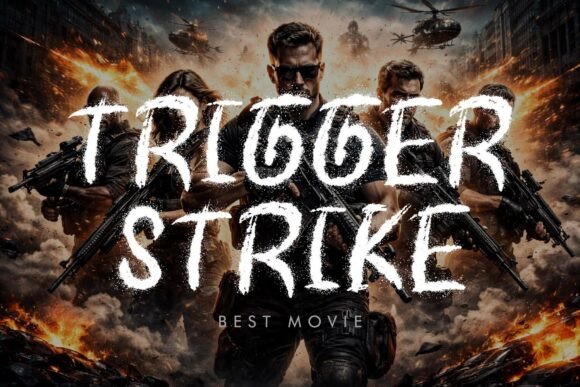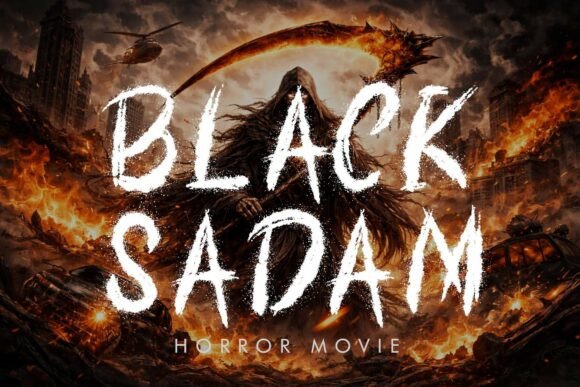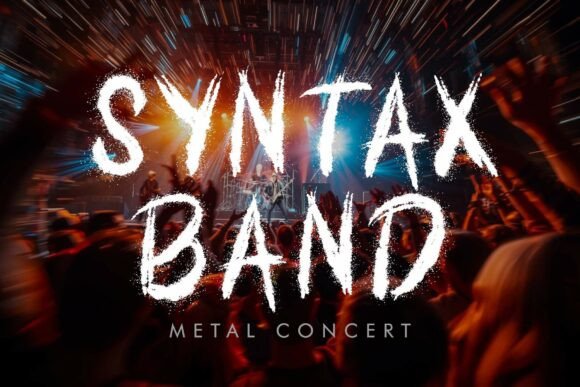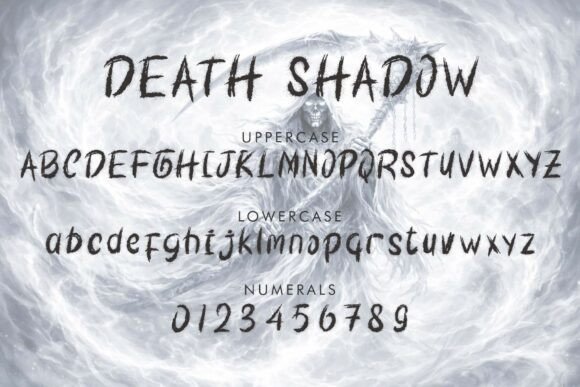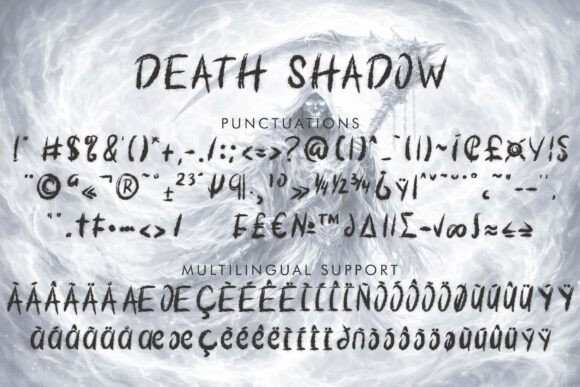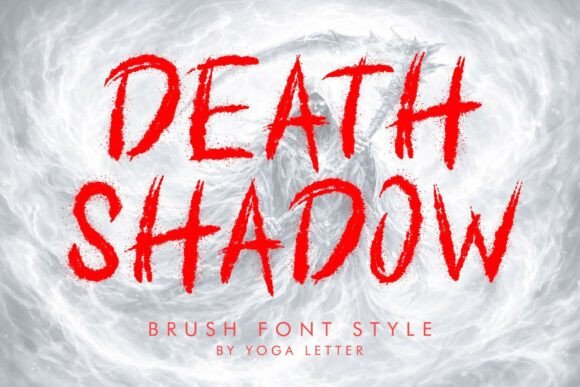
Unleash the Power of Death Shadow Font: Elevate Your Designs with Elegance and Horror
In the realm of typography, few fonts manage to evoke the same level of intrigue and versatility as the Death Shadow Font. This elegant and modern brush font has taken the design world by storm, offering a wide range of creative possibilities for designers, crafters, and horror enthusiasts alike. With its sophisticated appeal and extensive feature set, Death Shadow Font is the perfect addition to any design project that demands a touch of horror, elegance, and modernity.
What Makes Death Shadow Font Stand Out?
Death Shadow Font is not just another addition to the vast sea of typefaces. It stands out for several reasons:
• Extensive Character Set: The font includes uppercase and lowercase letters, ensuring that your designs can have the perfect balance of cases. Additionally, it features numerals, punctuation, and multilingual support, making it incredibly versatile for global projects.
• Elegant and Modern Brush Style: The font boasts an elegant and modern brush style that can add a touch of sophistication to any design. Its unique texture gives it a handcrafted feel, perfect for designs that require a personal touch.
• Perfect for Horror and Action Themes: As suggested by its name, Death Shadow Font has a mysterious and somewhat eerie feel to it, making it an ideal choice for horror movie titles, Halloween themes, and any project that requires a hint of darkness and mystery.
The versatility of Death Shadow Font is one of its most compelling features. Here are some of the many design possibilities it offers:
• Movie Titles: Whether it’s for a horror movie, an action-packed blockbuster, or a drama, this font can add the perfect touch of elegance and intrigue.
• Tattoos and Stickers: For those looking for a unique tattoo design or sticker for their products, Death Shadow Font provides an elegant yet bold statement.
• Banners and Posters: Create eye-catching banners and posters for metal concerts, Halloween events, or Valentine’s Day promotions with a touch of modern elegance.
• Logos and Branding: For businesses looking to create a memorable brand identity, this font offers a sophisticated and modern appeal.
• T-shirts and Screen Printing: Design unique and captivating t-shirts and other merchandise with a font that stands out.
Why Designers and Crafters Love Death Shadow Font
Designers and crafters appreciate fonts that offer both aesthetic appeal and practicality. Death Shadow Font checks all the boxes:
• Time-Saving: With its extensive character set and multilingual support, designers can work on a variety of projects without the need for multiple fonts.
• Customization: The unique brush style allows for a high level of customization, enabling designers to create truly unique pieces.
• Trend-Relevance: The font’s modern and elegant look ensures it remains relevant with current design trends, making it a valuable asset for any designer’s toolkit.
Death Shadow Font is more than just a typeface; it’s a design statement. Its elegant and modern brush style, combined with its extensive feature set, makes it a versatile tool for a wide range of design projects. Whether you’re working on a horror movie title, a metal concert poster, or simply looking for a unique font for your tattoo design, Death Shadow Font offers the perfect blend of elegance, horror, and modernity. Elevate your designs and make a lasting impression with this powerful and captivating font.